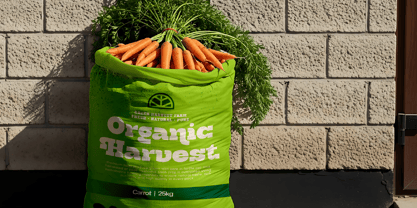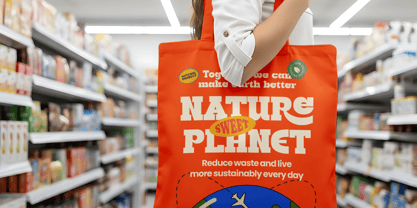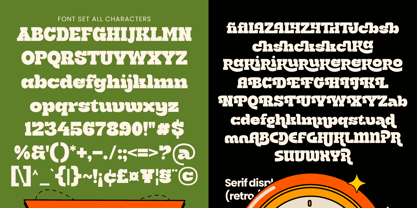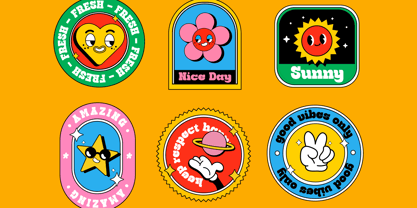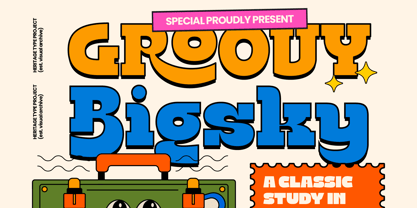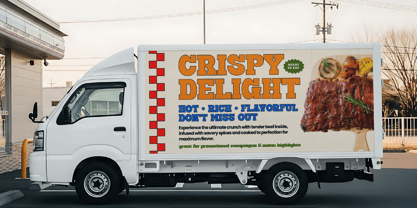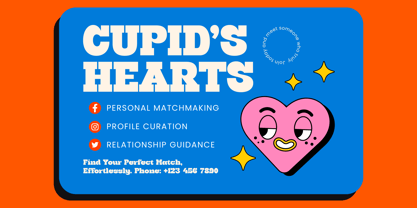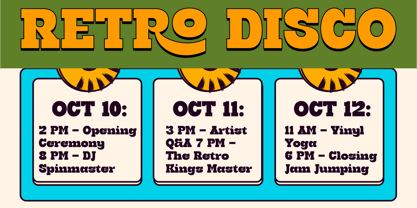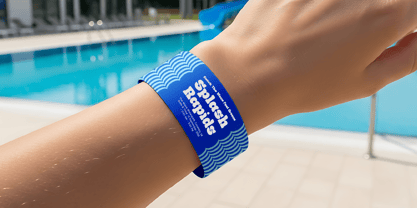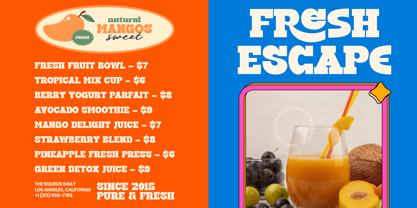
Groovy Bigsky
by Timelesstype Studio
The Groovy Bigsky Font Family was designed by Heru Utama Putra and published by Timelesstype Studio. Groovy Bigsky contains 2 styles and family package options. More about this family
Groovy Bigsky is a bold retro serif display font inspired by vintage typography and playful mid-century design. The letterforms feature thick curves, soft edges, and strong serif details that create a nostalgic yet energetic look. Its chunky structure and smooth flow make it perfect for eye-catching headlines and expressive branding. This typeface balances retro charm with modern usability. The rounded shapes and confident weight give it a friendly personality, while the serif details add structure and character. Groovy Bisky is built for designers who want bold typography with a fun vintage twist. With 28 ligatures, 68 stylistic alternates, and full multilingual support, you get plenty of creative flexibility. Mix and match alternates to create unique wordmarks, dynamic layouts, and standout display compositions. If you're looking for a retro serif font that feels bold, playful, and highly versatile, Groovy Bigsky delivers strong visual impact every time.
Foundry: Timelesstype Studio